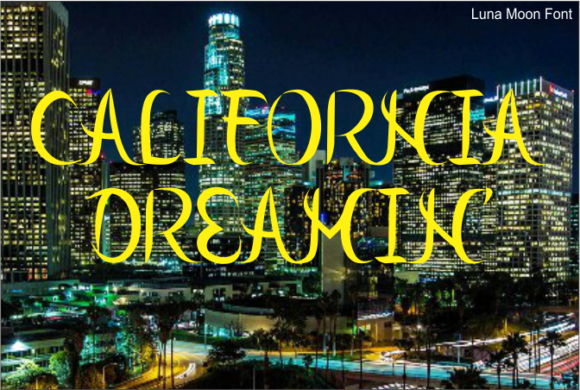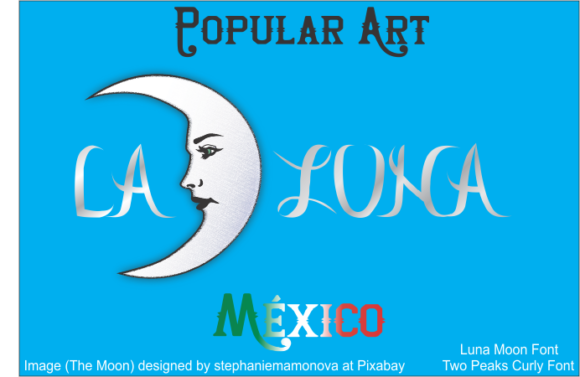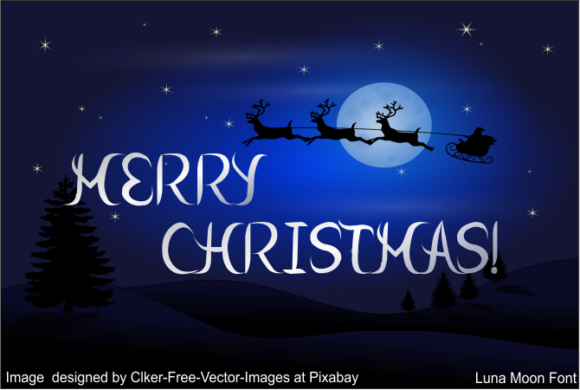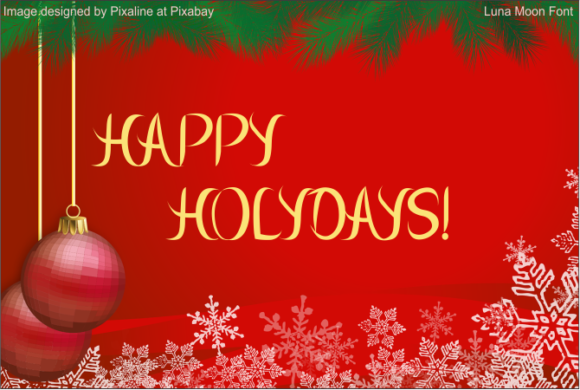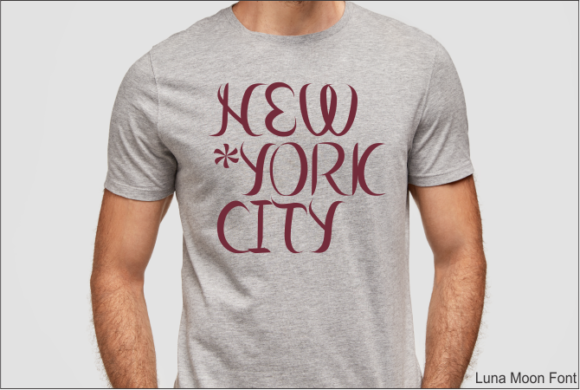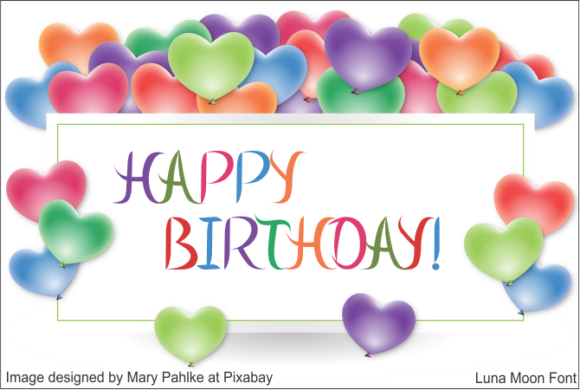
Introduction to Luna Moon Font
Luna Moon is a cool and whimsical display font.
This versatile script font has a wide spectrum of applications ranging from greeting cards to headlines and is guaranteed to add a chic, trendy feel to your next project .